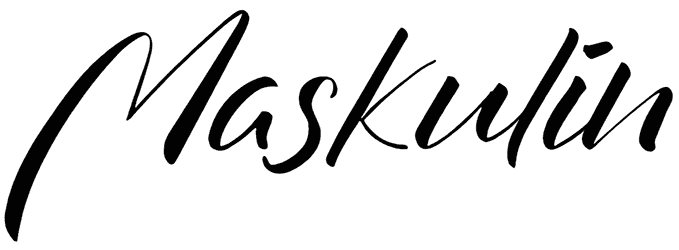
Maskulin Font
Maskulin font is a tribute to a modern calligraphy font that comes with an unusual and hand-typed touch to messages you intend to give. You’ll find that this timeless font is perfect for quotes, websites, or invitations that need a few enthralling elements. A collection of chic, vintage, elegant handwritten fonts with aesthetic appeal.